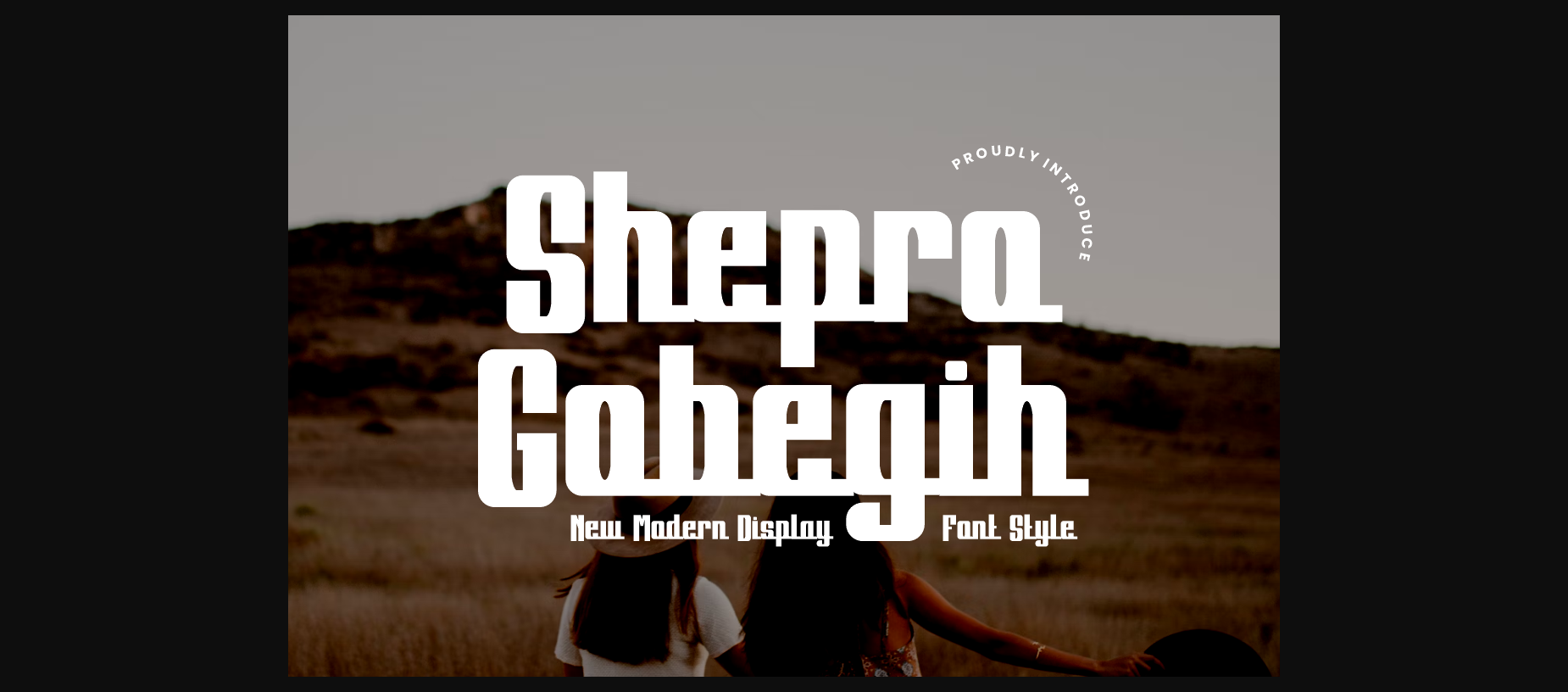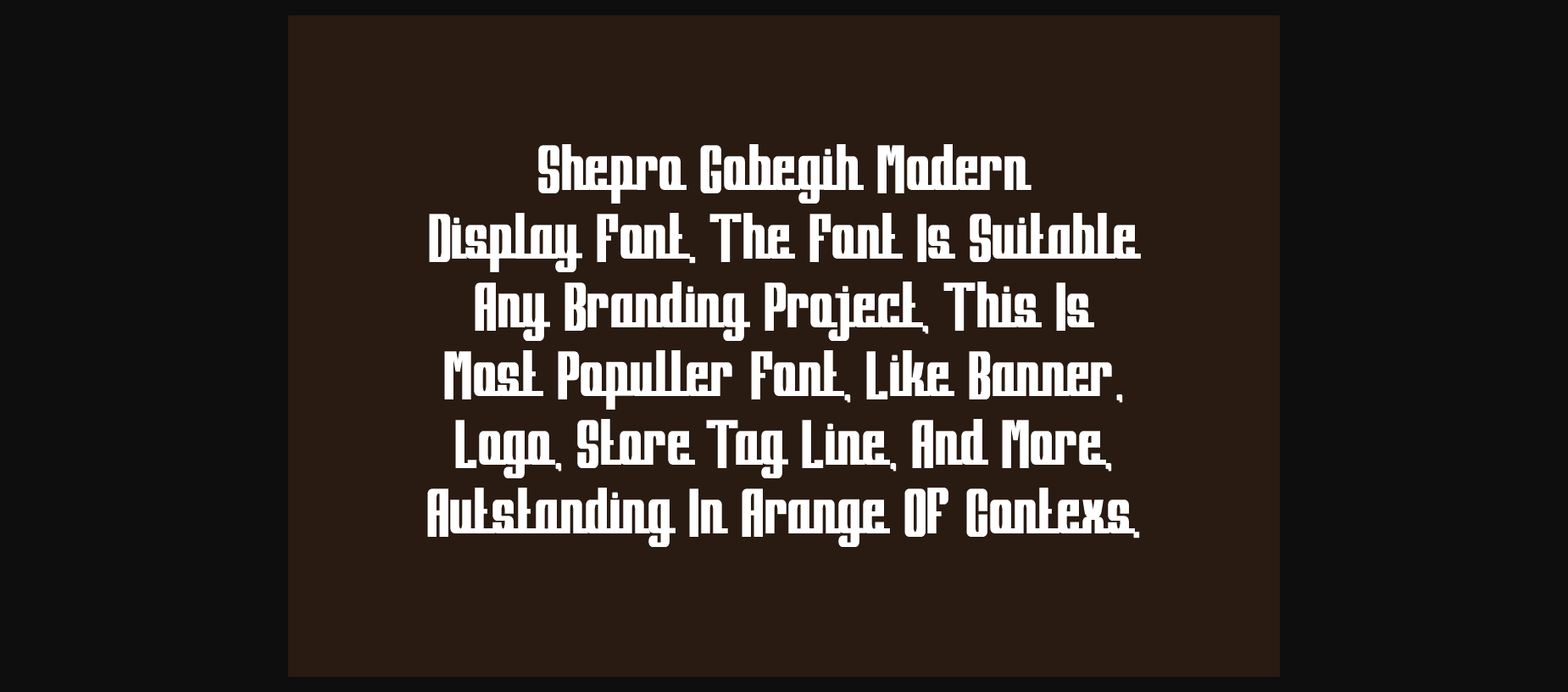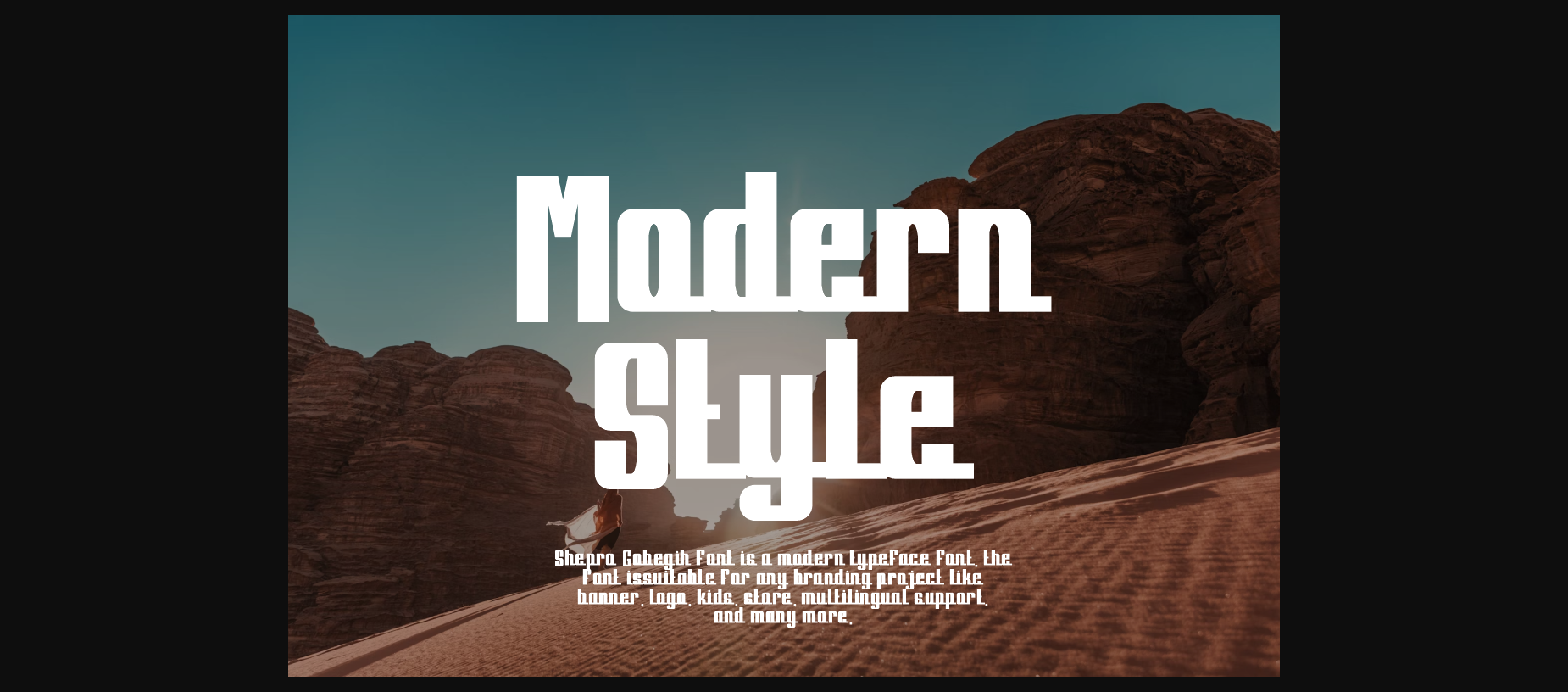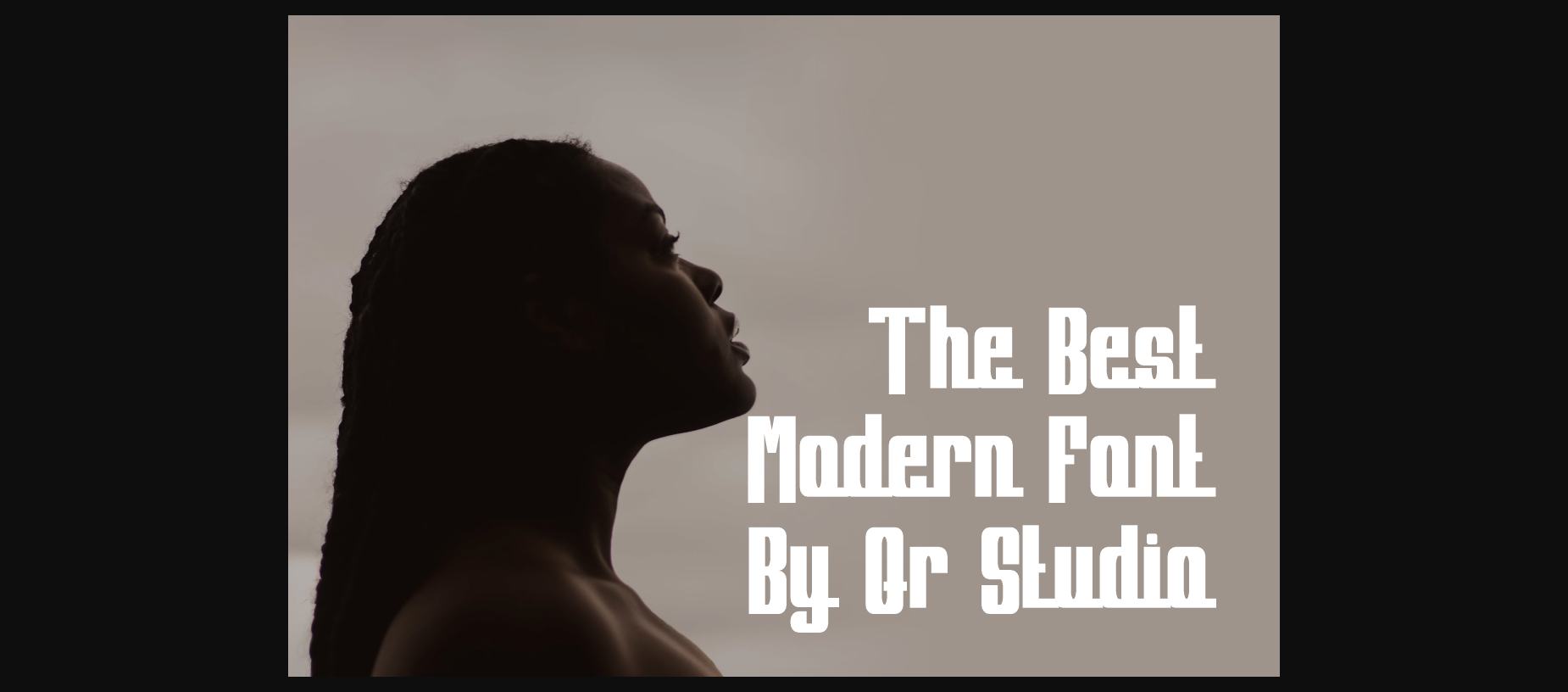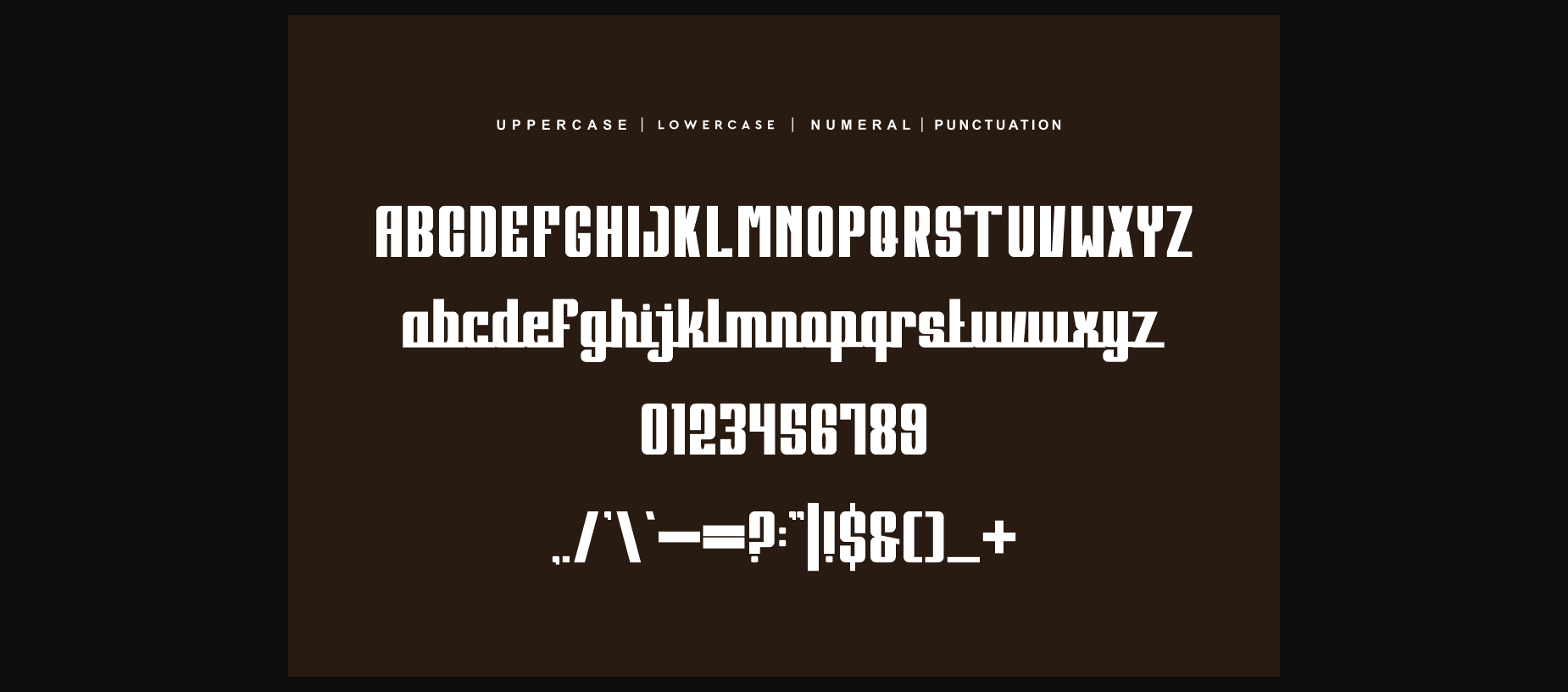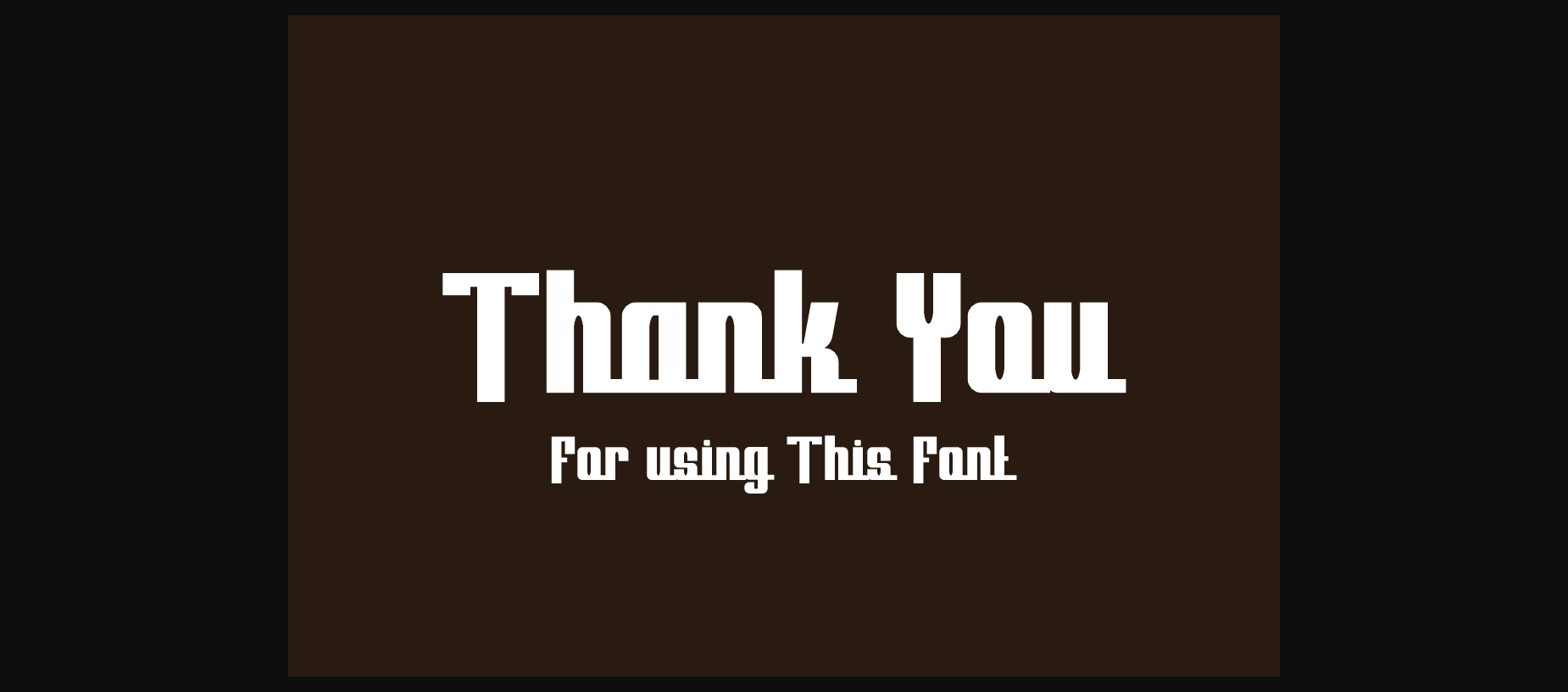
Shepro Gobegih Font
About Shepro Gobegih Font
Shepro Gobegih is a modern and authentic display font.
The font is suitable for any branding project like logos, sports events, fitness, posters, and many more.